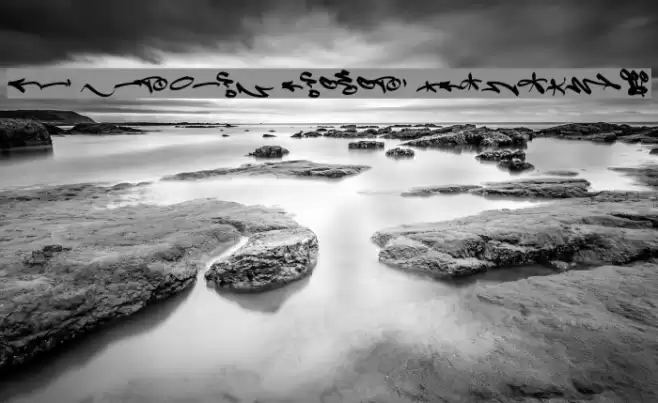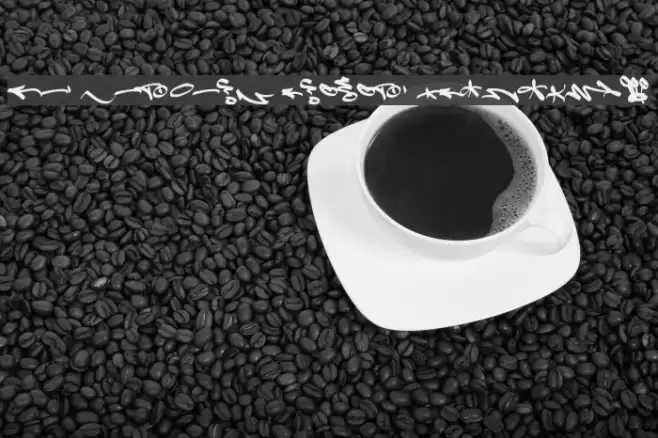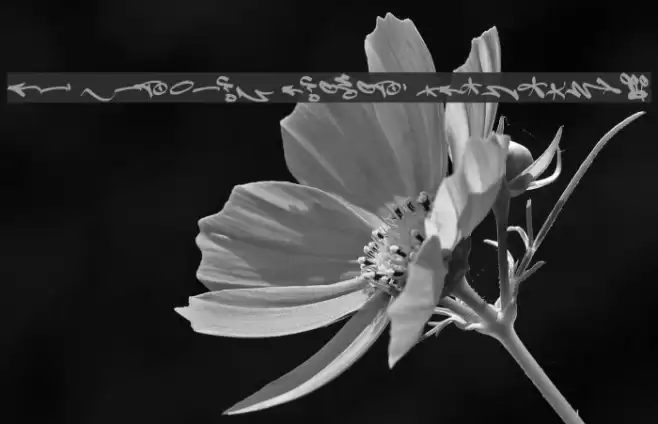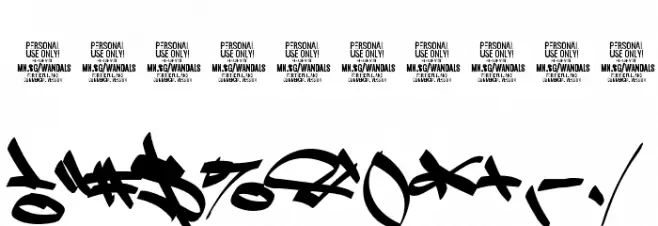
Fat Wandals Element PERSONAL Font
Fat Wandals Element PERSONAL Description
This font features a highly stylized and abstract design, reminiscent of graffiti art. The characters are interconnected with flowing, exaggerated strokes that create a sense of movement and energy. Each letter is unique, with varying thickness and intricate details that make it stand out as a decorative element. The font's chaotic yet artistic appearance makes it ideal for creative projects that require a bold and unconventional look. It is not suitable for body text due to its complexity and lack of readability at smaller sizes.
A graffiti-inspired, highly decorative font with abstract, flowing characters from Uncategorized fonts.
- Proposed Projects: Ideal for street art designs, album covers, posters, and urban-themed branding.
- Character Spacing: Tight
- Overall Style: Modern, Artistic
- Use Case: Logos, Headlines, Artistic projects